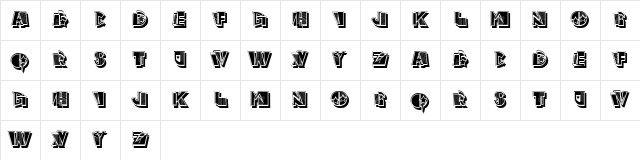
Soviet Snitch Regular
Design Context for Soviet Snitch
Soviet Snitch is a composed and adaptable typeface that performs quietly and consistently across a wide range of design contexts.